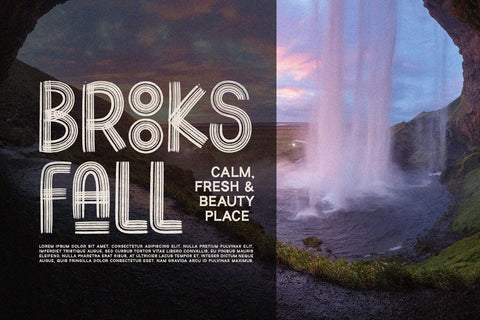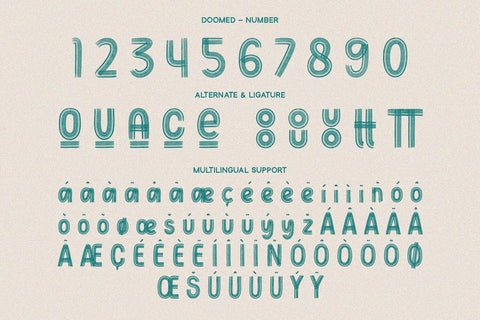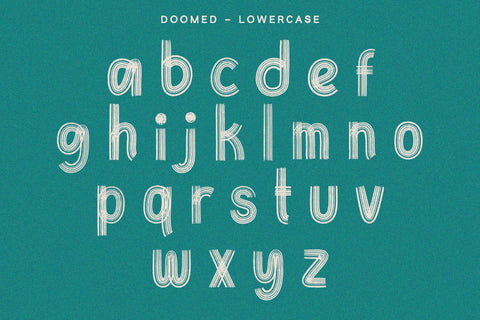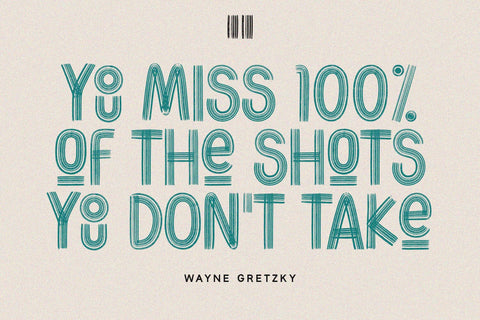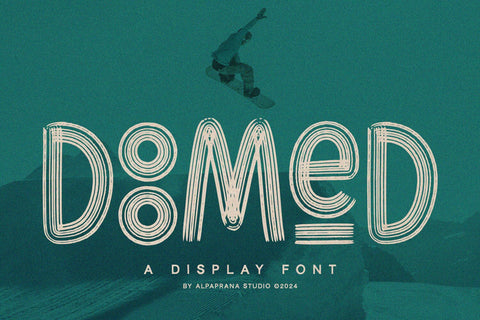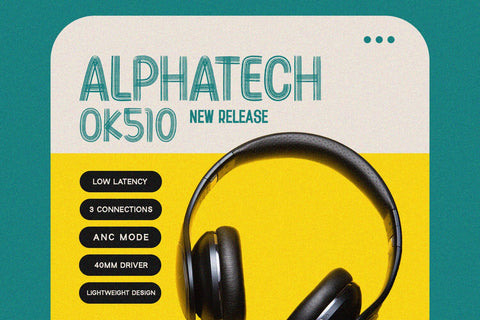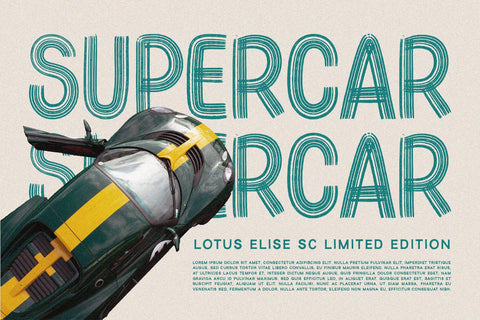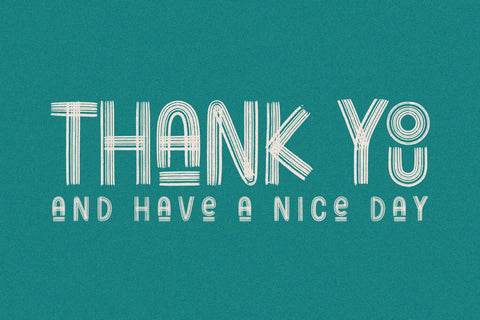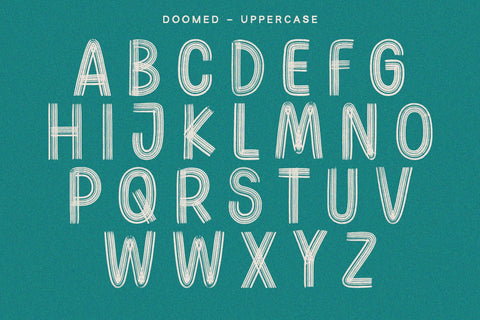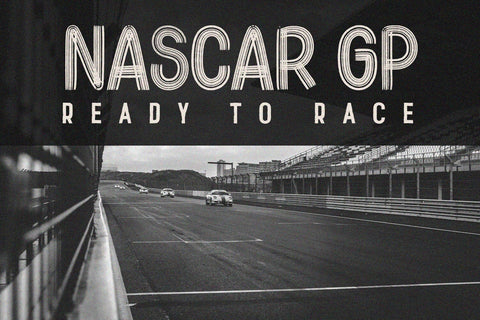
Doomed - Brush Font
Doomed is a display brush font with unique and modern feels. It will be perfectly used for Branding, Logo Design, Lettering, Logotype, Clothing, Poster, magazine, packaging, posters, shopping bags, t-shirts, book covers, photography, special events and other design project.